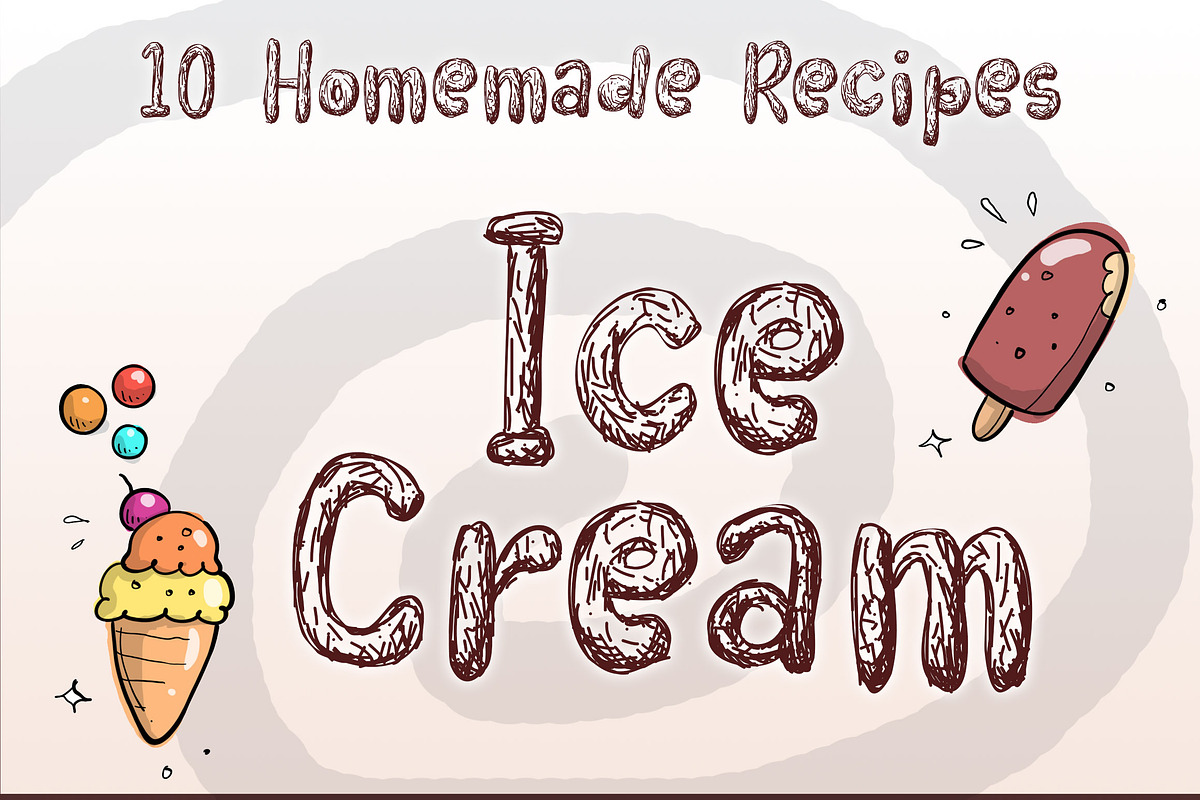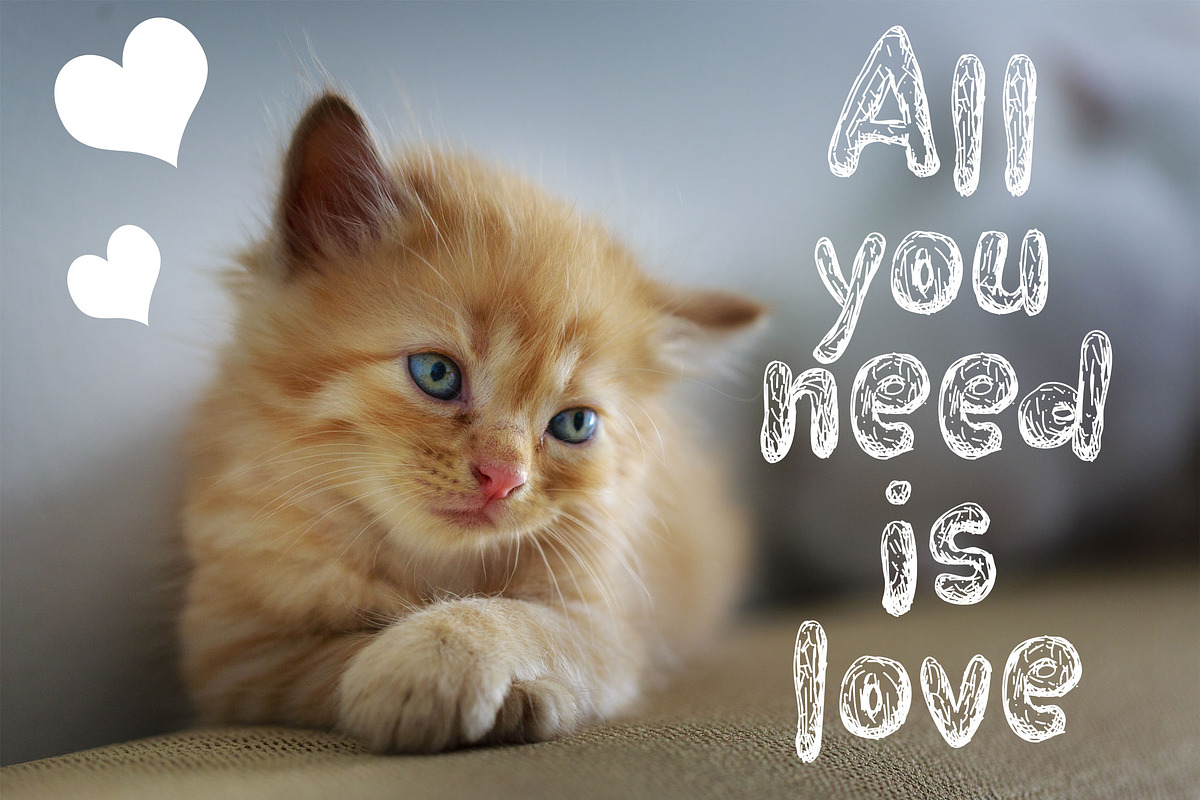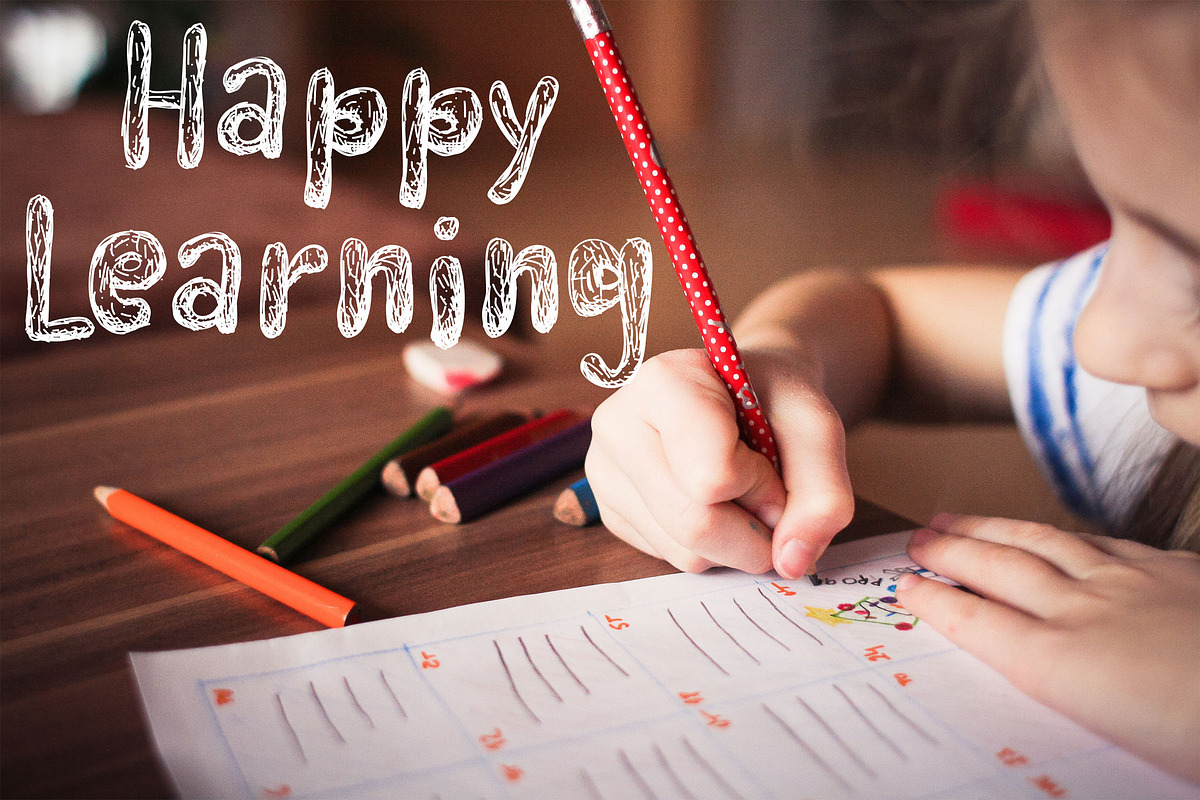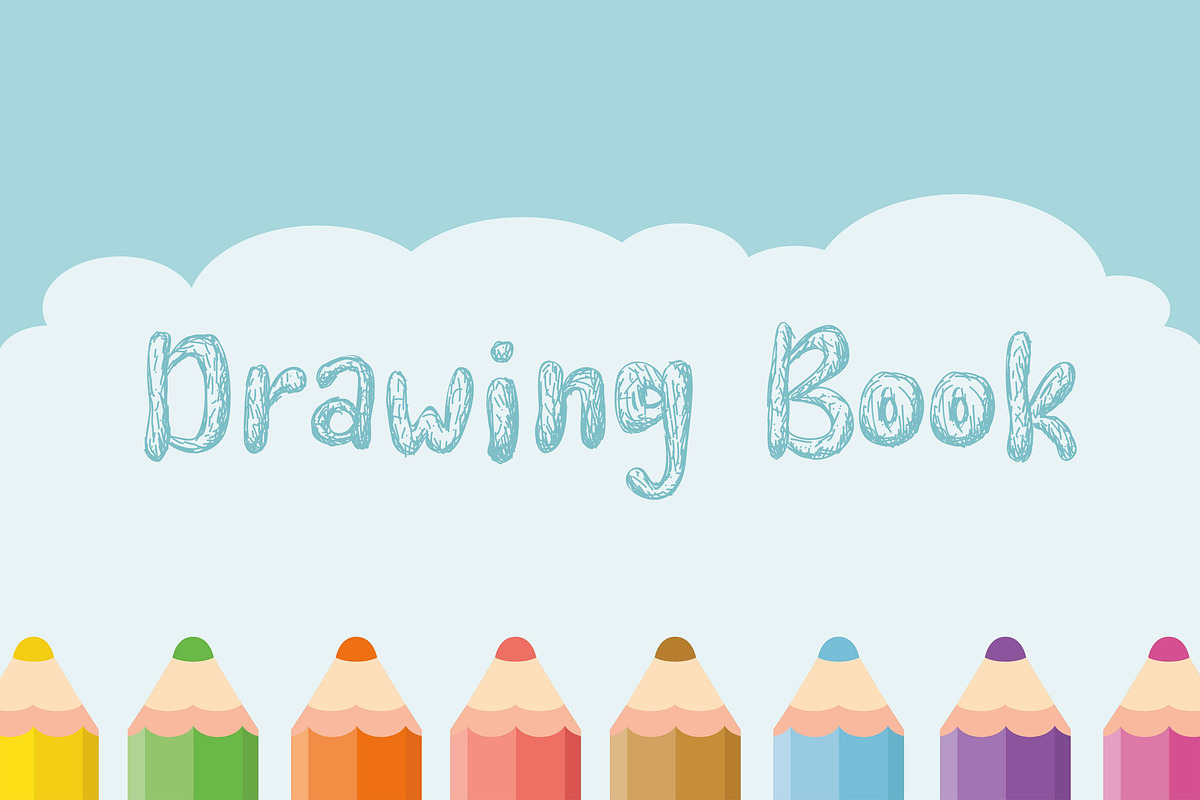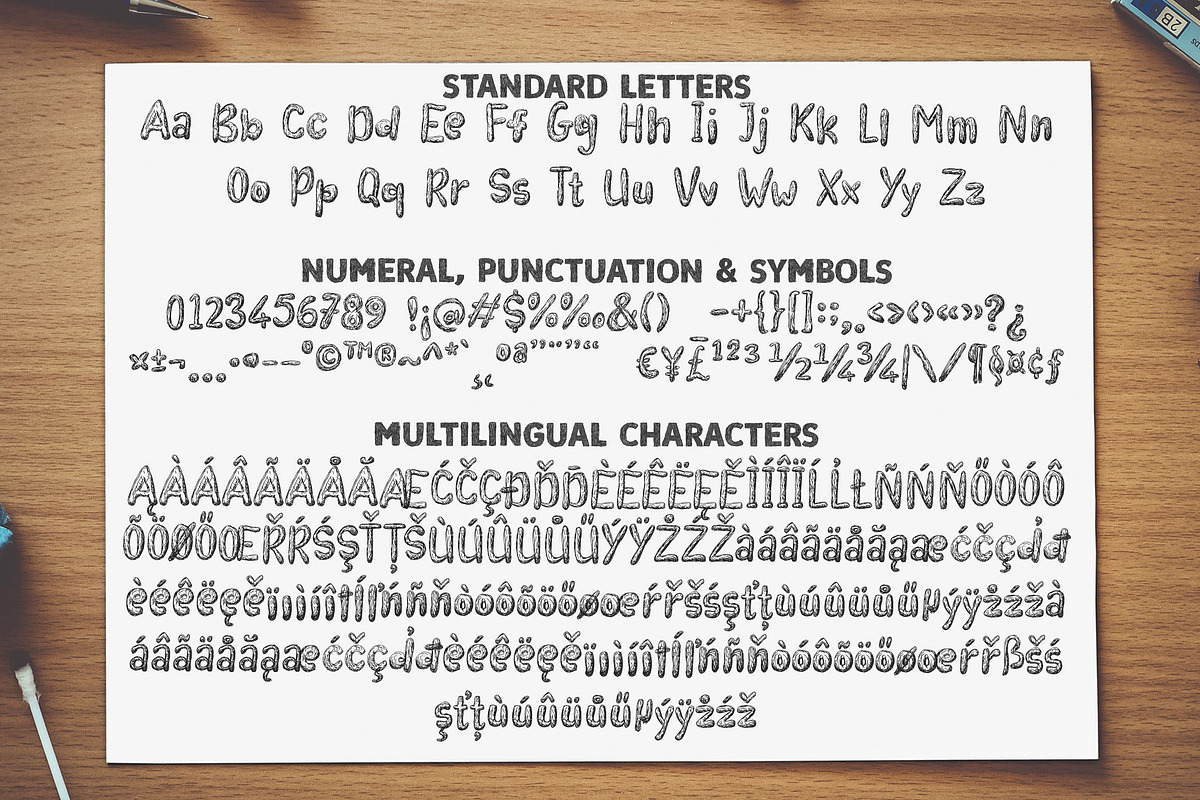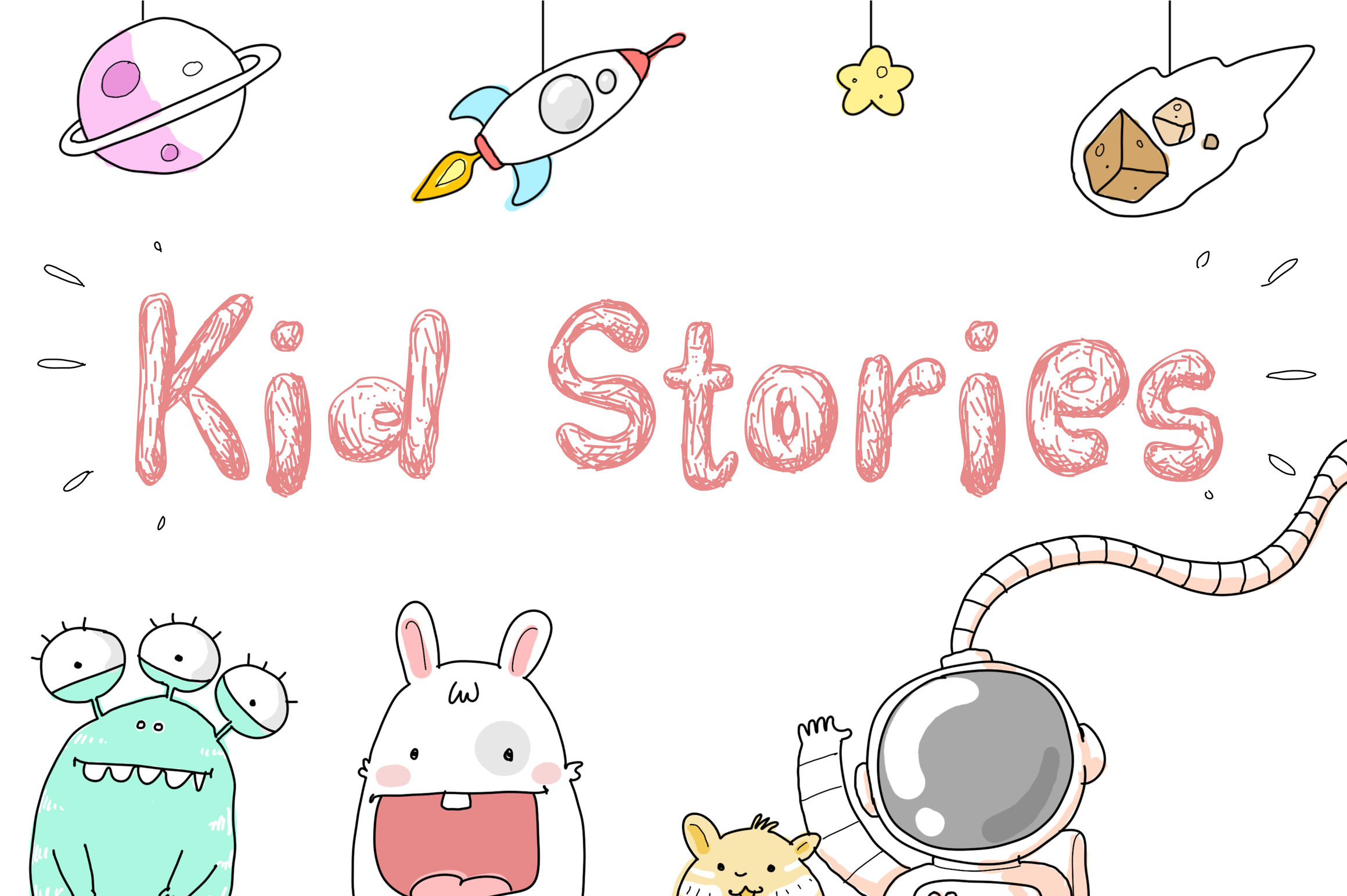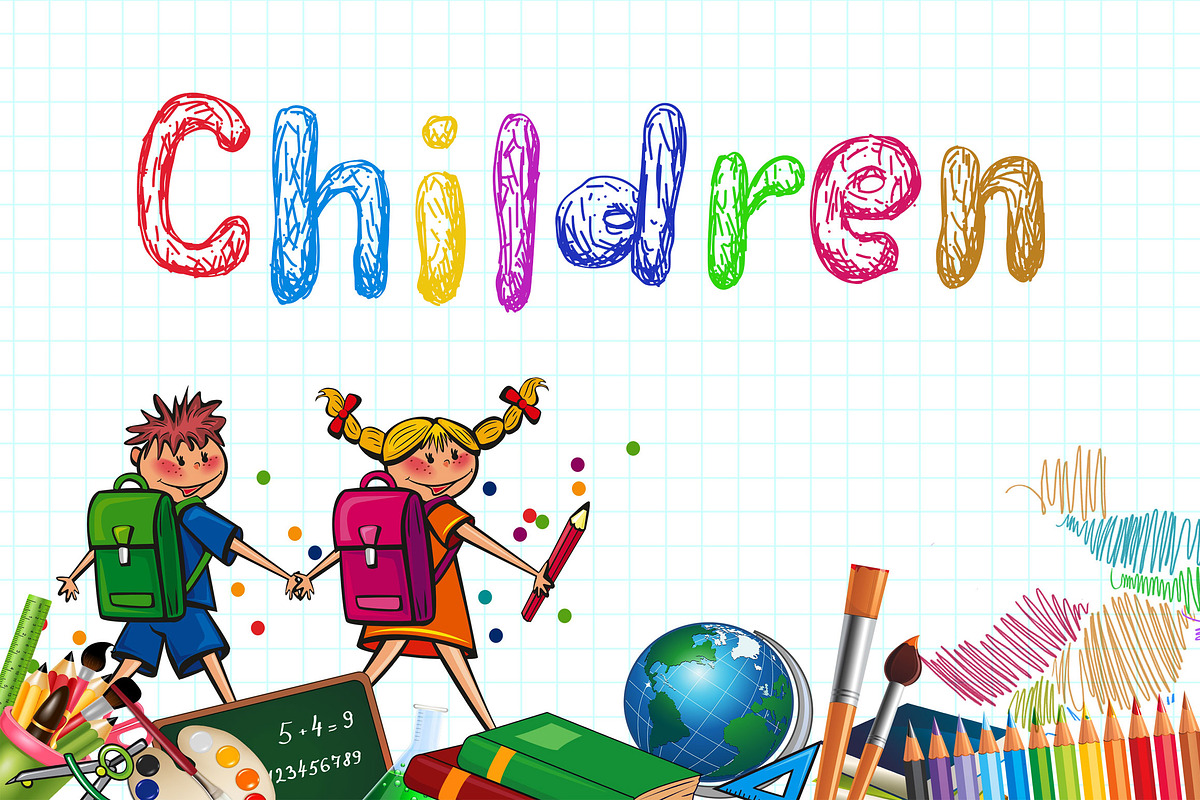
Kid Stories | Fun Font
Introducing a new fancy pen sketch style font. This font will cute to cute theme in your books, magazine, flyer, YouTube thumbnail, etc.
This font contain 290 glyph, supported to Latin, Eastern Europe, and Turkish characters.